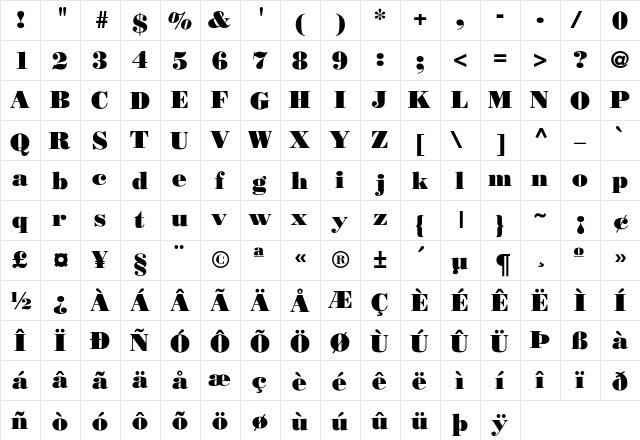
Bodoni-Poster Regular
Design Context for Bodoni-Poster Typeface
Bodoni-Poster takes a measured approach to typography — its balanced proportions and neutral character make it a reliable workhorse for both digital and print work.
Pro Tip: Use Bodoni-Poster in both headline and body roles to test its range before committing to a single application.